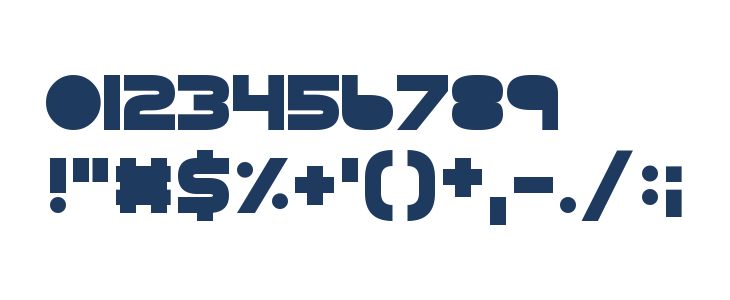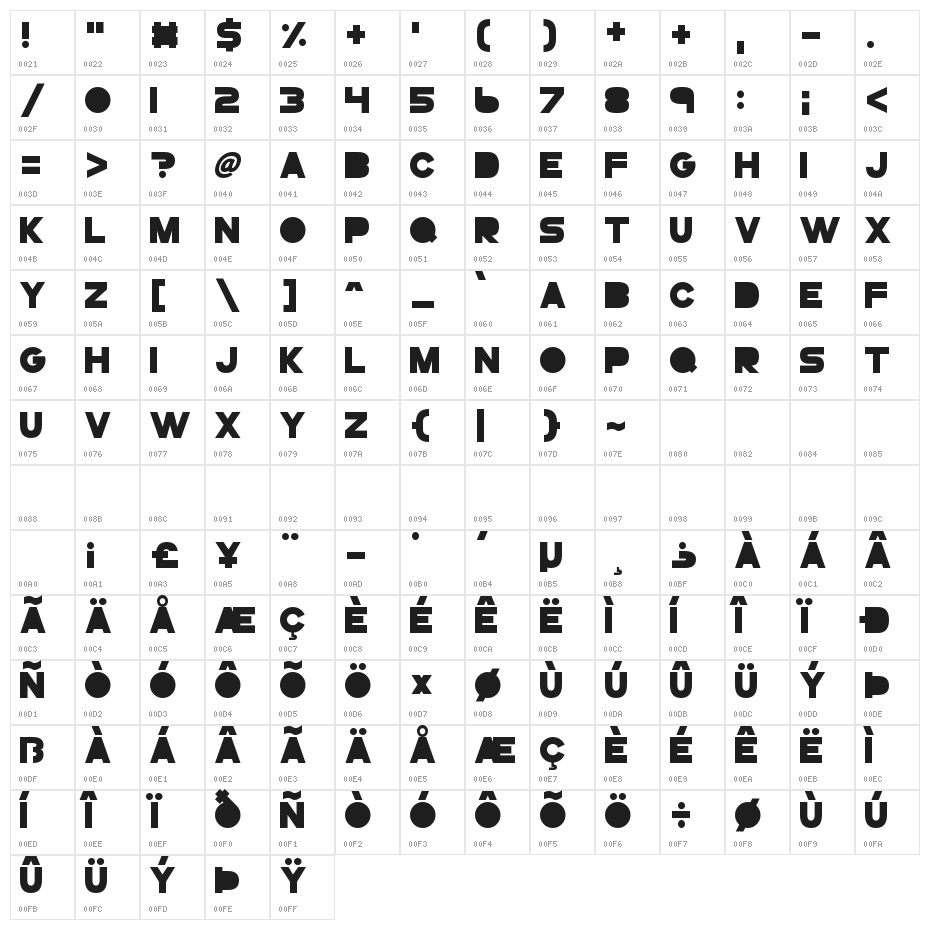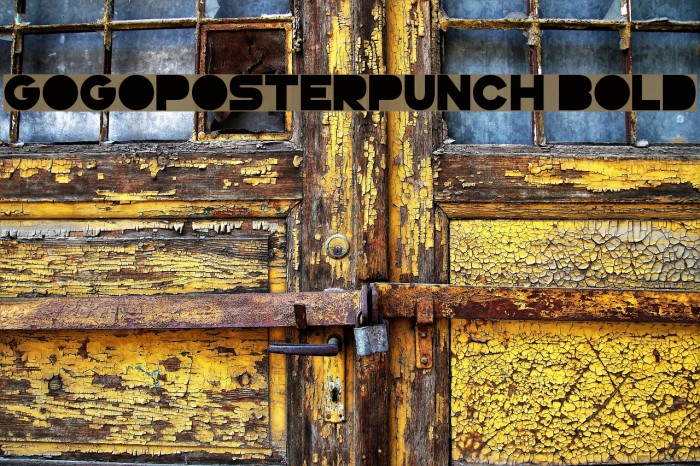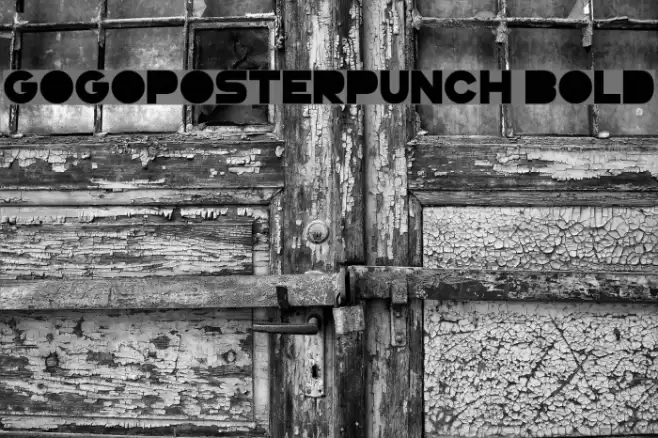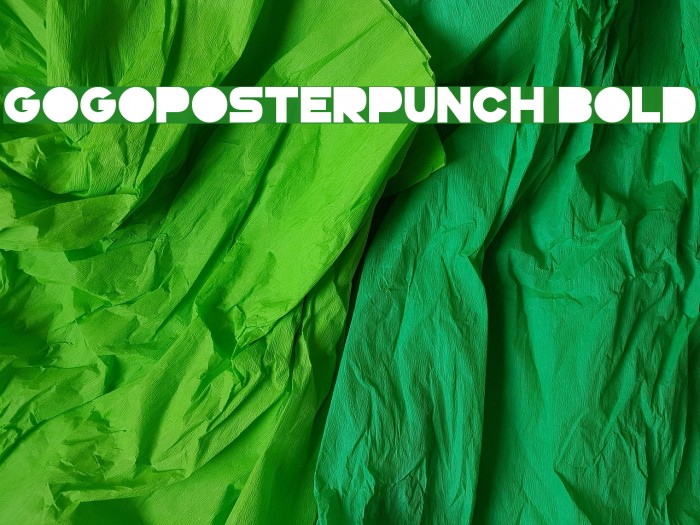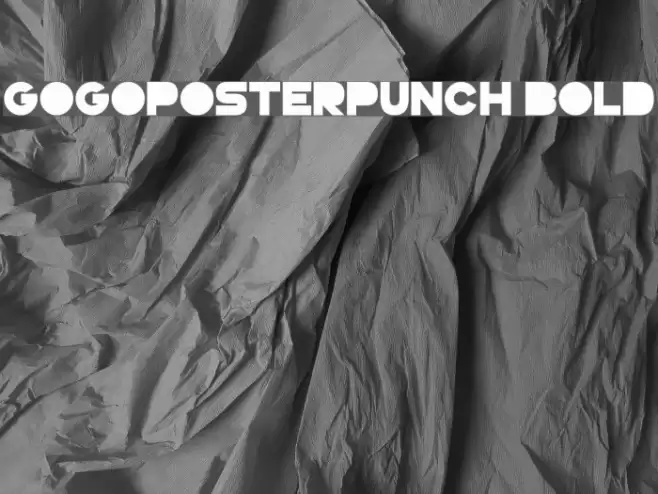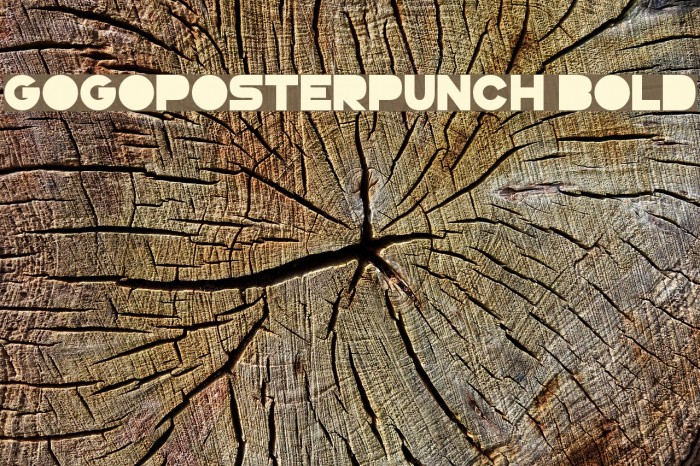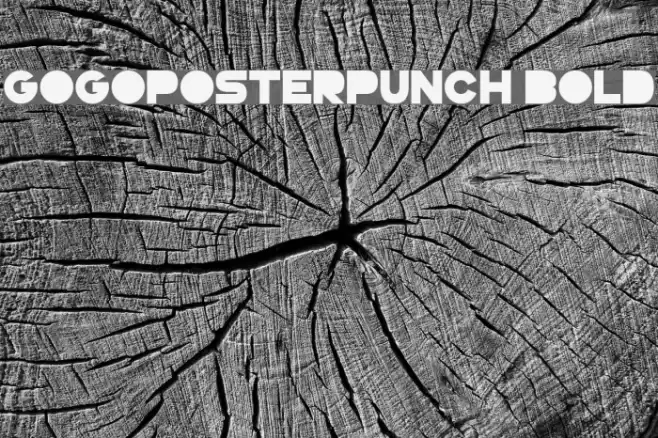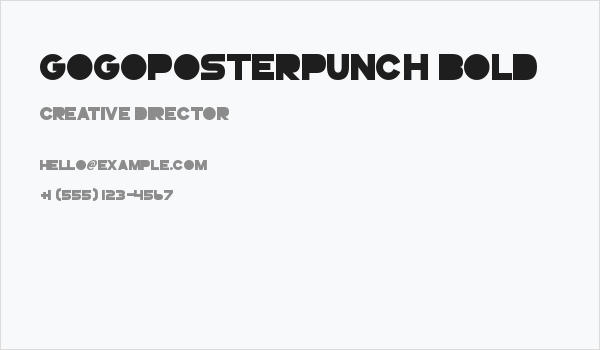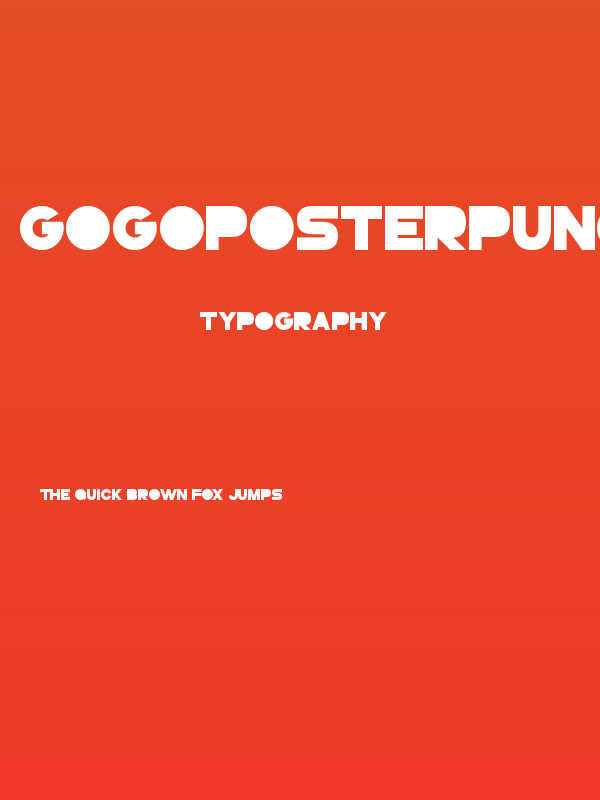
GoGoPosterPunch Bold Font
GoGoPosterPunch Bold Description
This bold, impactful font features thick, geometric letterforms with a strong presence. Its uppercase letters are designed with a modern, blocky style that commands attention. The characters are evenly spaced, providing a balanced and cohesive look. The numbers and special characters maintain the same boldness and geometric style, ensuring consistency across all text elements. This font is ideal for creating striking headlines and eye-catching designs.
| Proposed Projects | Perfect for posters, advertisements, branding, and any project requiring a bold statement. |